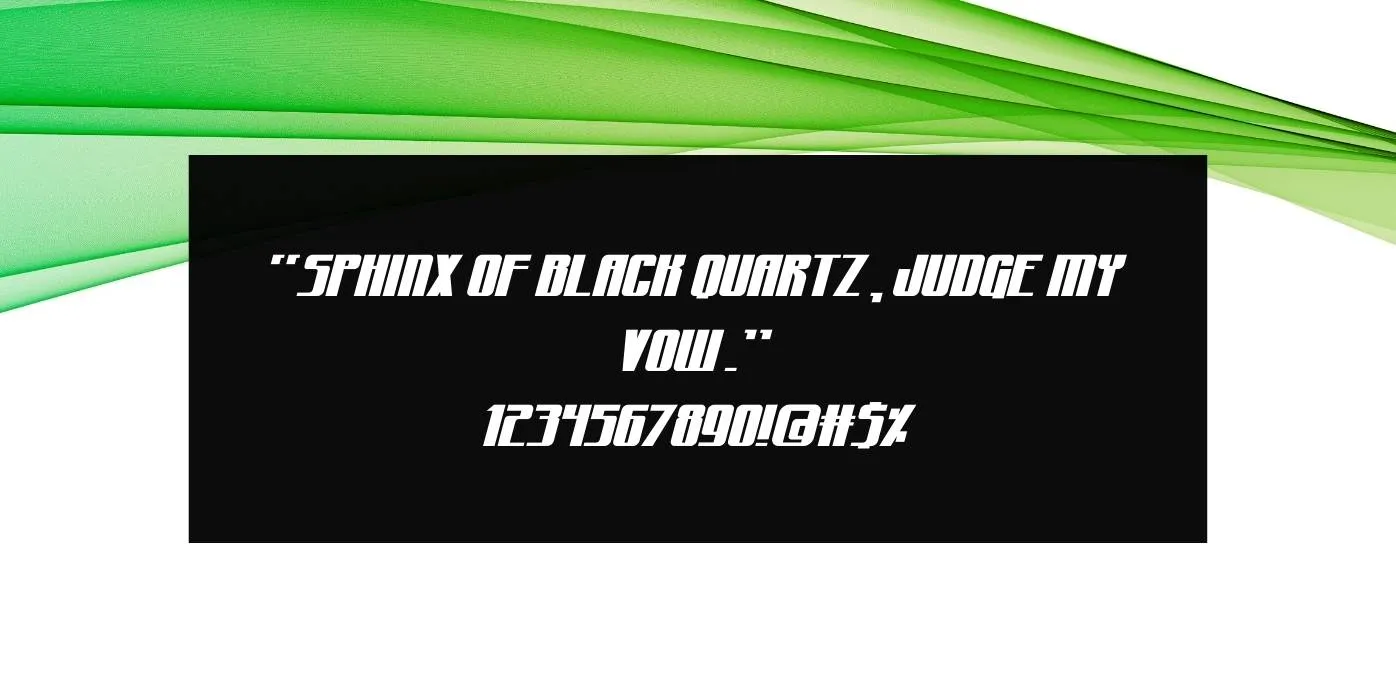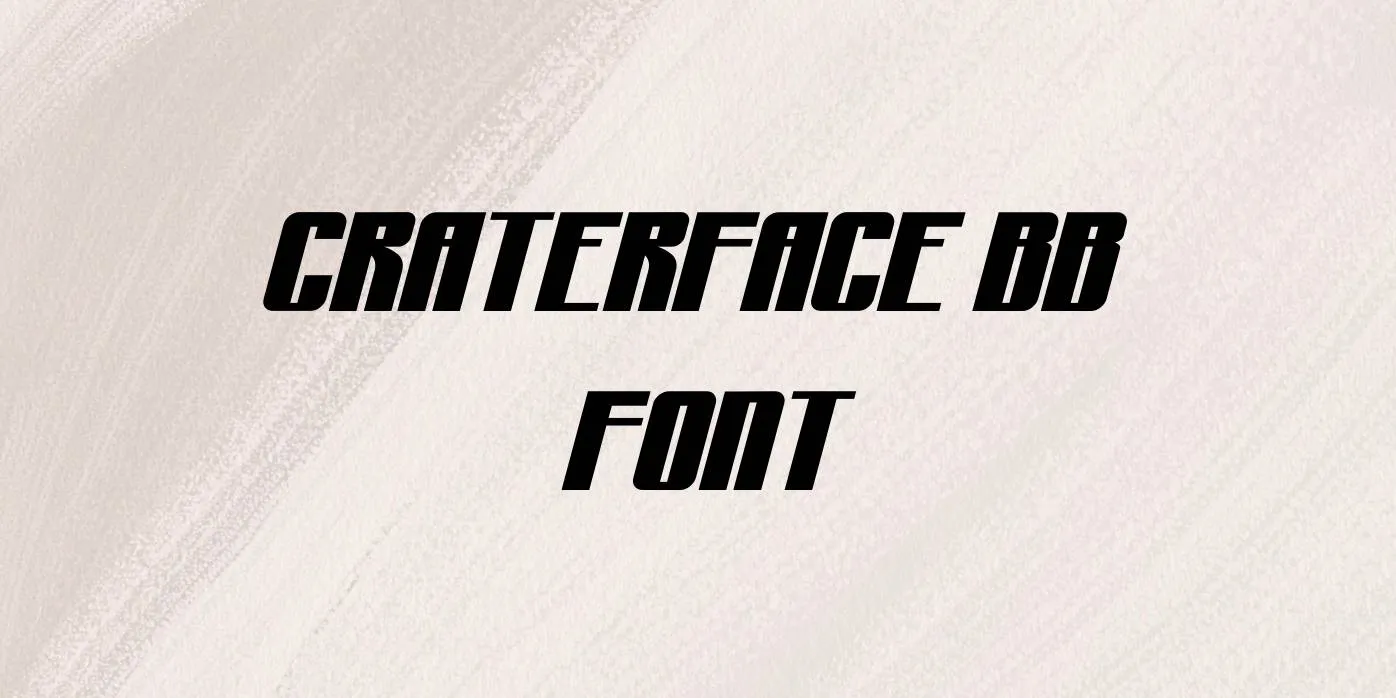
Craterface BB Font
Craterface BB Font is a display typeface created by British designer Brian Botting in 2006. The name Craterface refers to the crater-like depressions on some of the letters, particularly the lowercase a, e, and g. The typeface was designed to be used in small sizes and is available in two weights, light and regular. This is a distinctive typeface that is perfect for body text and logo designs.
The design is simple and clean, making it easy to read in small sizes. The crater-like depressions give the typeface a unique look that sets it apart from other sans-serifs. This font style has been used by a number of high-profile brands. You can give your designs a marvelous touch then try to pair game of thrones font and make your designs astonishing.
If you’re looking for a sans-serif that is both unique and legible, this Font is a great option.